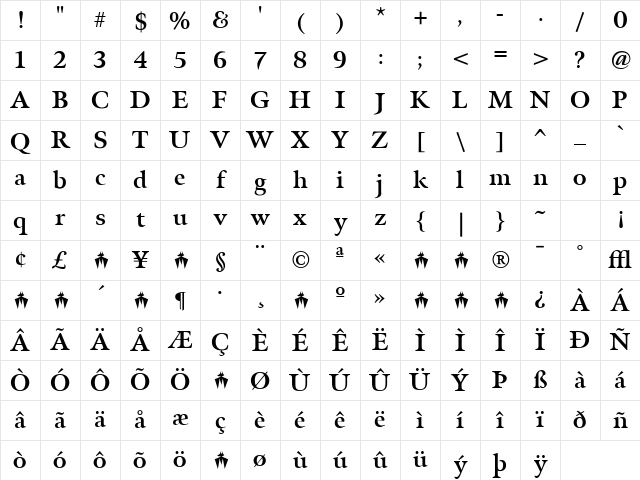
Complete Meno Bold glyph index. Displaying only characters natively supported by Meno Bold font.
Meno is a composed and adaptable typeface that performs quietly and consistently across a wide range of design contexts. Its bold stroke weight gives it real presence on the page.
Who designed the Meno Bold font?